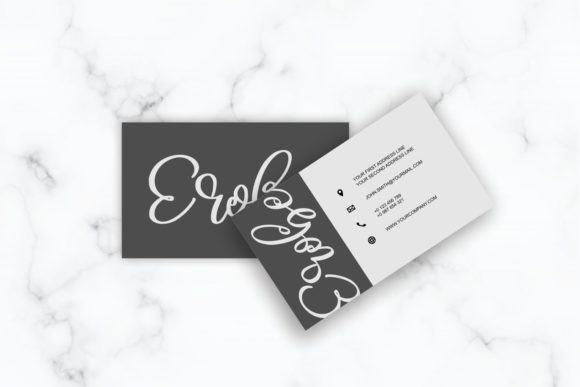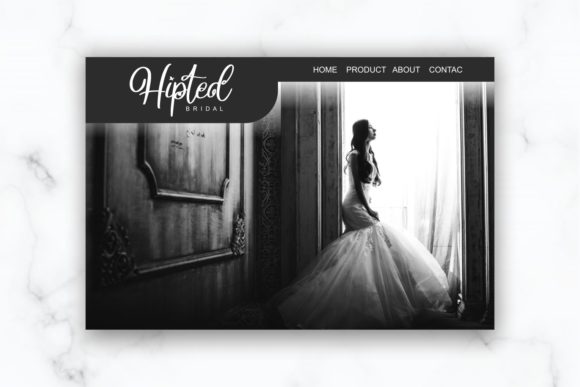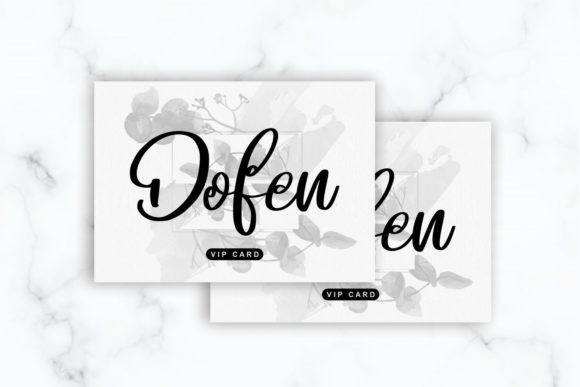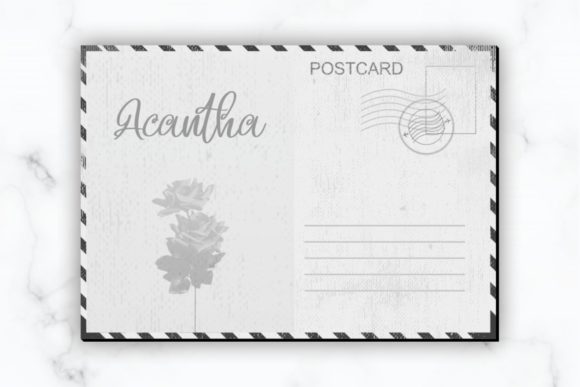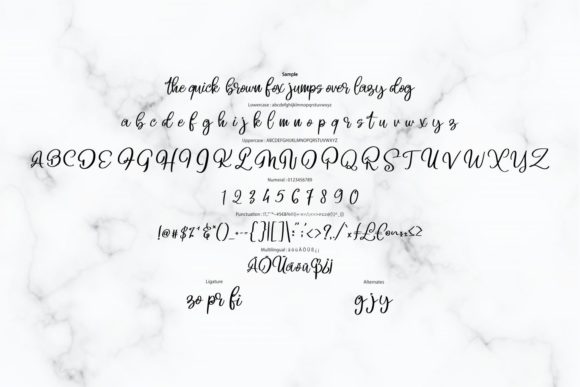
Introduction to Beligo Cary Font
Have you ever been working on a creative project and wished you had the perfect font to take it to the next level? As a designer, you know how a single element can make or break the overall aesthetic of your work. That’s where the beautiful Beligo Cary Font comes in – a stunning curly script font that’s sure to elevate your designs and leave a lasting impression.
With its gorgeous swashes and high-quality design, Beligo Cary Font is a valuable resource for any designer looking to add a touch of elegance and sophistication to their work. Whether you’re working on a branding project, creating a wedding invitation, or designing a website, this font is sure to be a game-changer. And the best part? It’s available for free download, making it an accessible and affordable design resource for designers of all levels.
From its transparent background to its versatile design, Beligo Cary Font is the perfect addition to any creative project. So why settle for ordinary when you can have extraordinary? Let’s dive in and explore the world of Beligo Cary Font and discover how it can take your designs to new heights.
Key Features of Beligo Cary Font
- Unique Script Font Design: Beligo Cary Font offers a beautiful, handwritten script style perfect for creative projects requiring a personal touch.
- High-Quality Design Resource: This font features high-quality design elements, ideal for designers and artists seeking a premium design resource.
- Transparent Background: The font’s transparent background allows for easy integration with various design elements, making it a versatile design resource.
- Font Size and Resolution: The font features a range of sizes and resolutions, from 12 to 72 points, making it suitable for various design applications.
- Perfect for Creative Projects: Beligo Cary Font is ideal for a wide range of creative projects, including invitations, posters, and social media graphics.
Honest Review: Beligo Cary Font
I recently stumbled upon the Beligo Cary Font while searching for a design resource for my next creative project. I’m always on the lookout for high-quality fonts that can elevate my work, and I’m excited to share my thoughts on this one.
What works well: ✨ The Beligo Cary Font is a beautiful, elegant script font that works perfectly for titles, headings, and even body text. The font is highly versatile and can be used in a variety of design contexts, from weddings to corporate branding. The font is also available for free download, which is a major plus in my book.
The font’s transparent background makes it easy to overlay on top of images or use as a background itself. I’ve used it for a client’s logo and it looks amazing.
Limitations: ⚠️ The font only comes in one style, which may limit its use in certain design projects. Additionally, the font may not be suitable for body text in small font sizes due to its ornate design.
Overall, I’m really impressed with the Beligo Cary Font. It’s a great addition to any designer’s toolkit and is definitely worth checking out for your next creative project.
- Great for titles and headings
- May not be suitable for small font sizes
Tips for Getting the Most Out of Beligo Cary Font
To get the most out of the Beligo Cary Font, experiment with different font sizes, colors, and styles. You can also combine the font with other design elements, such as images or shapes, to create a unique and visually appealing design. Additionally, use the font to create a consistent design theme throughout your project.
Yes, the Beligo Cary Font is designed with a transparent background, making it perfect for use in creative projects that require a high level of design flexibility. You can easily place the font over any background image or color without worrying about a white or colored outline.
Q: What is the resolution of the Beligo Cary Font?
The Beligo Cary Font is designed at a high resolution of 300 DPI, ensuring that it looks crisp and clear in any design application, whether it’s for print or digital use.